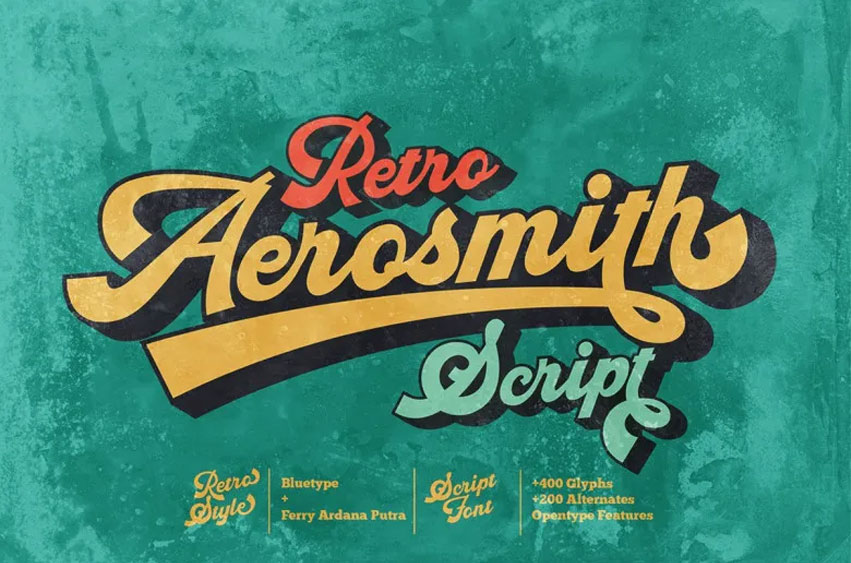
Aorasmith Font
Aorasmith Font belongs to the group of typefaces that can be classified as a bold retro script. These three muckereers are capable of coming up with instant old-fashioned designs. Increase the level of sophistication with all the stylistic sets and fine swashes that are available to this font.
This typography from the past is ideal for the following applications; logo, t-shirt, badge, vintage and retro branding, vintage and retro quotes and packaging quotes among others.